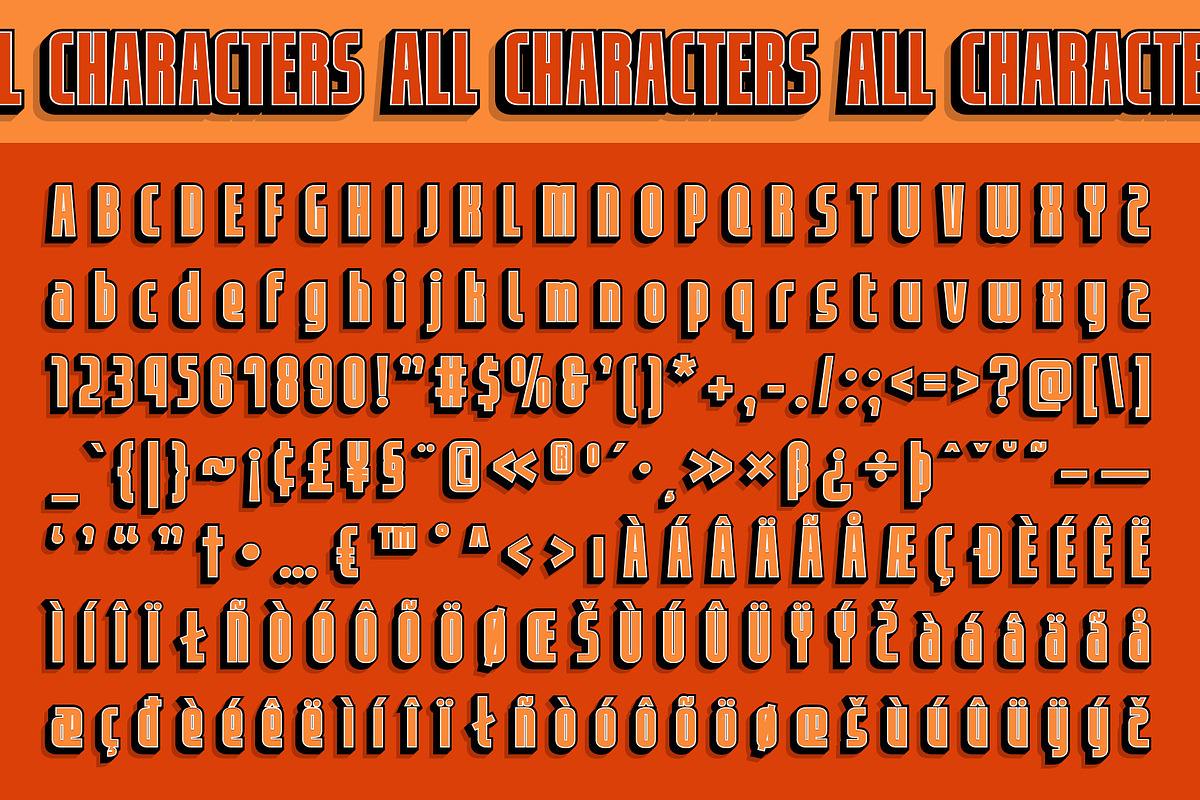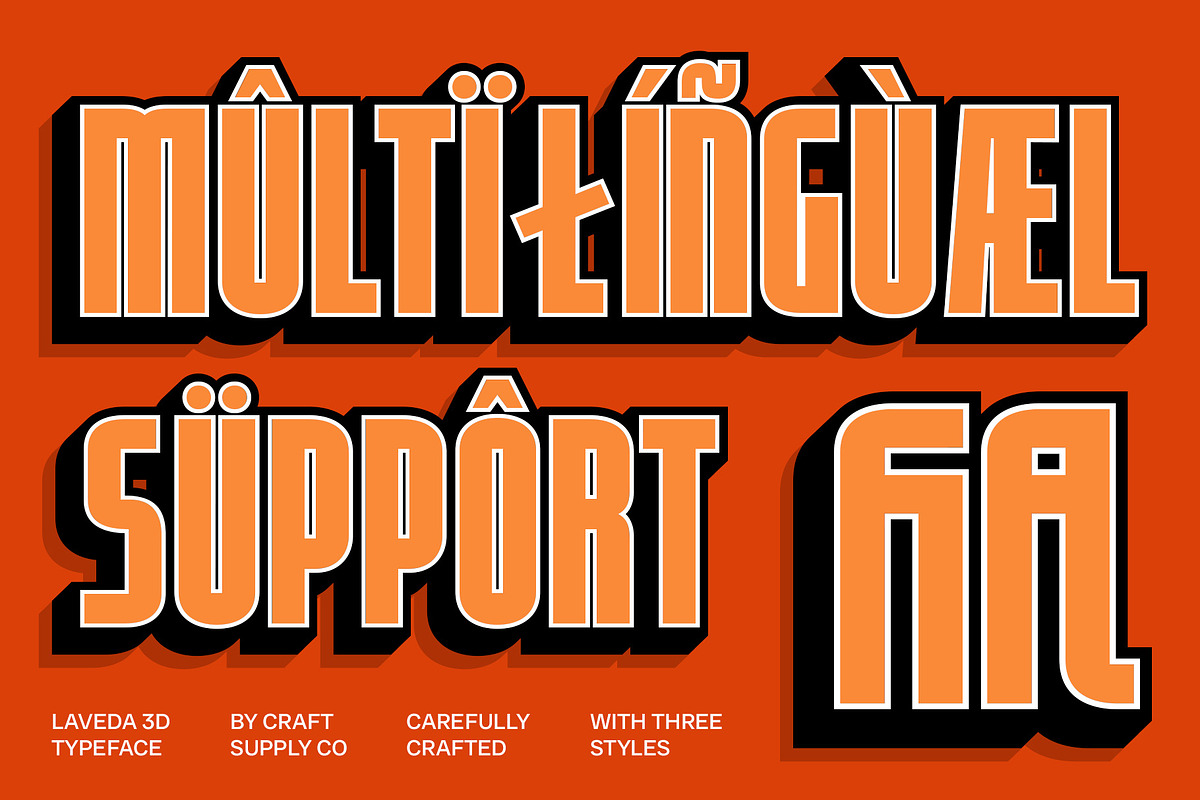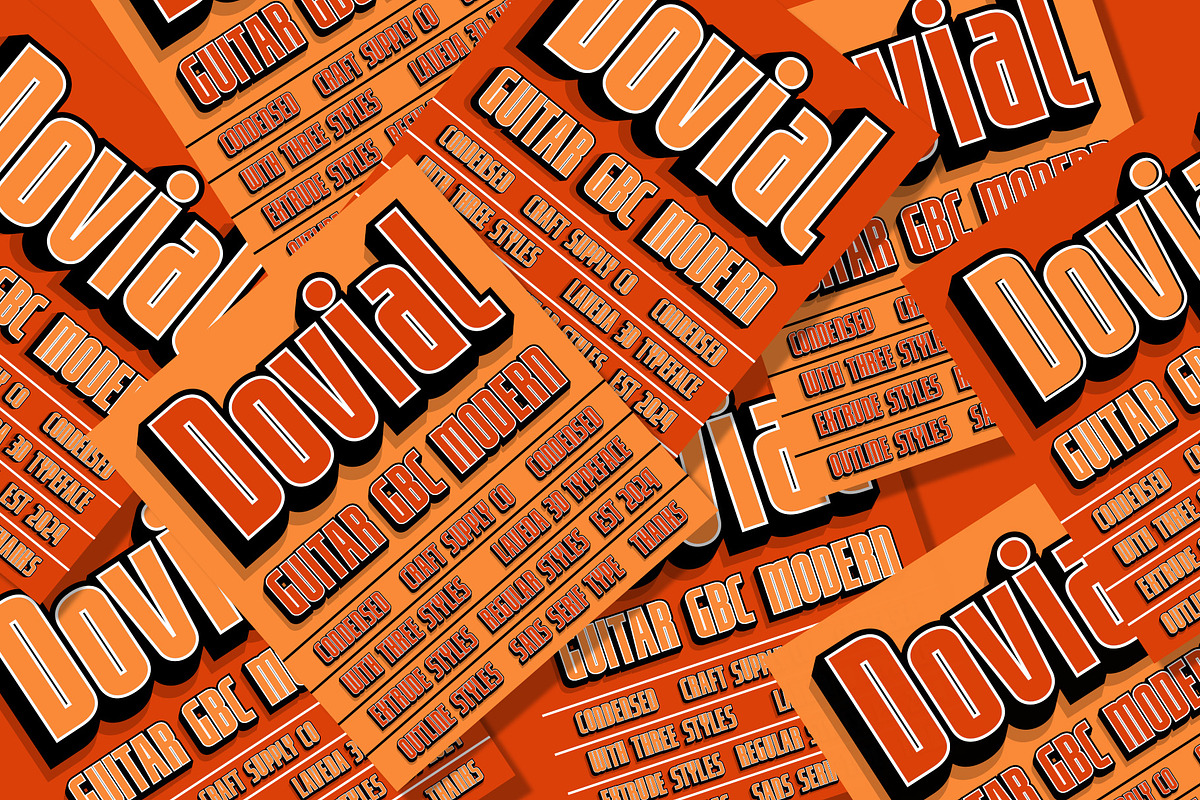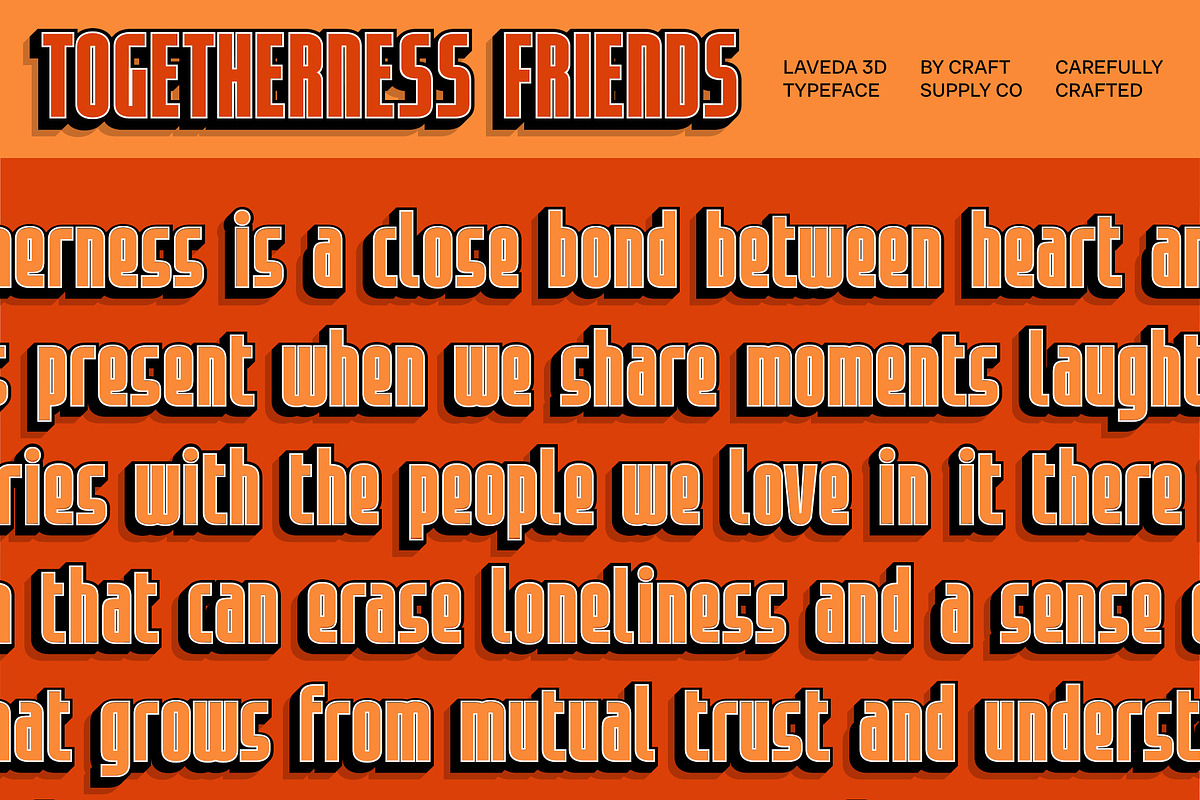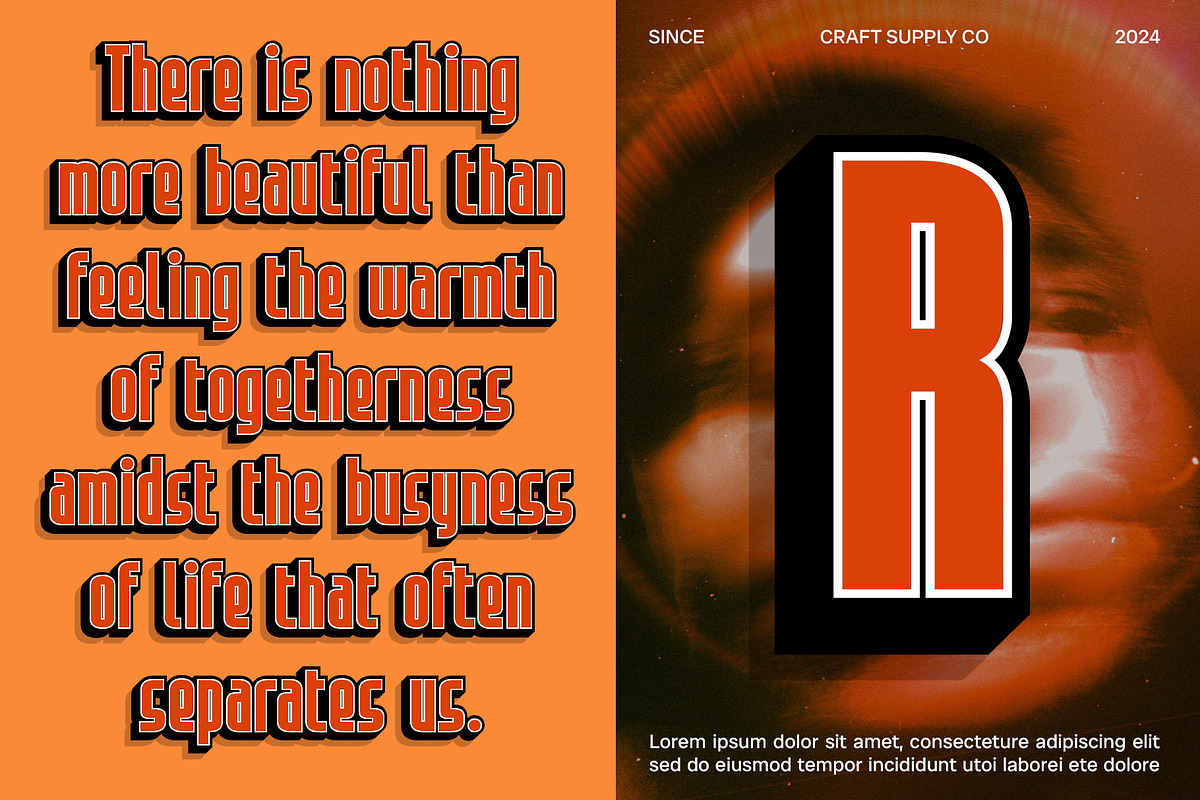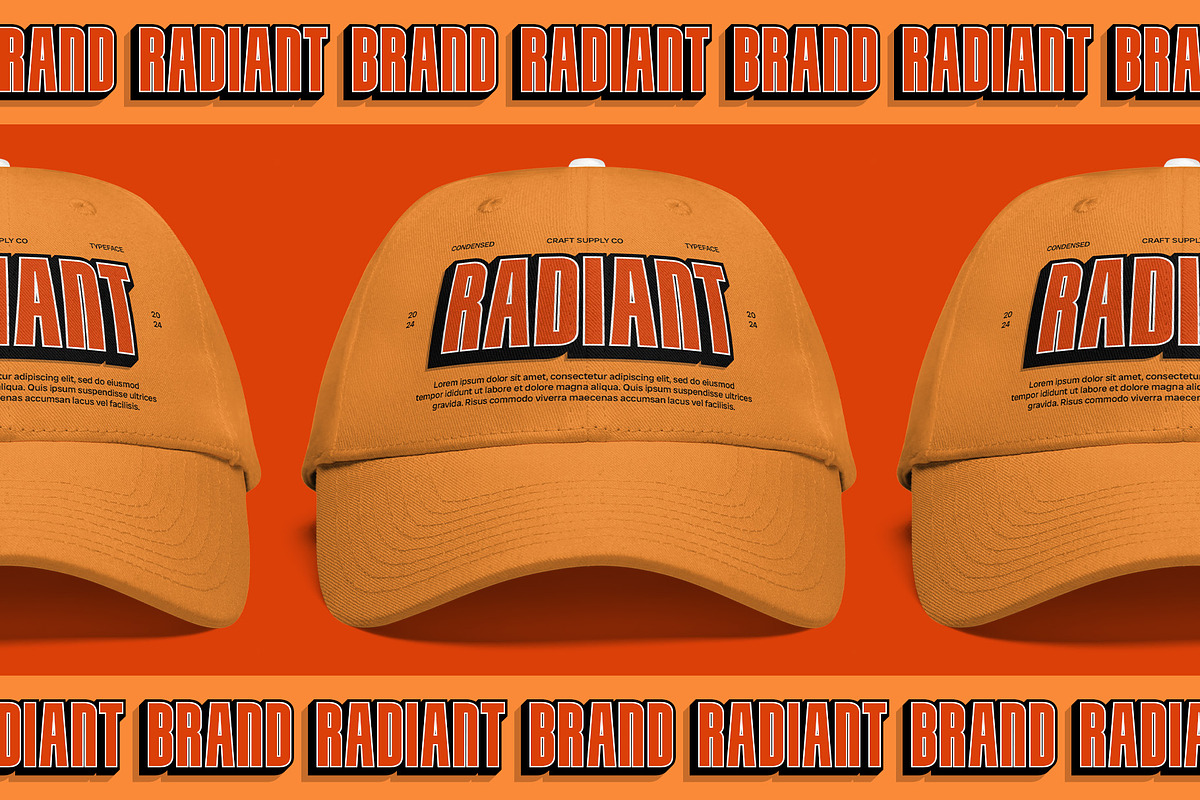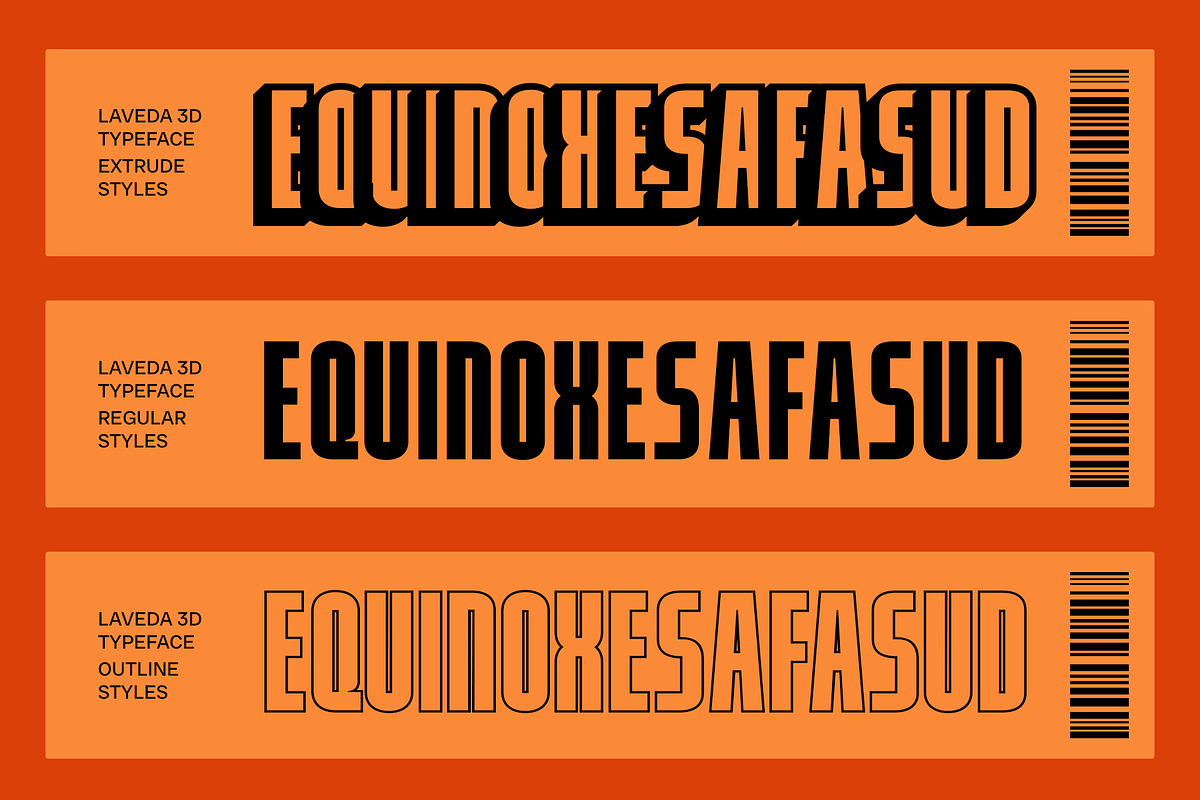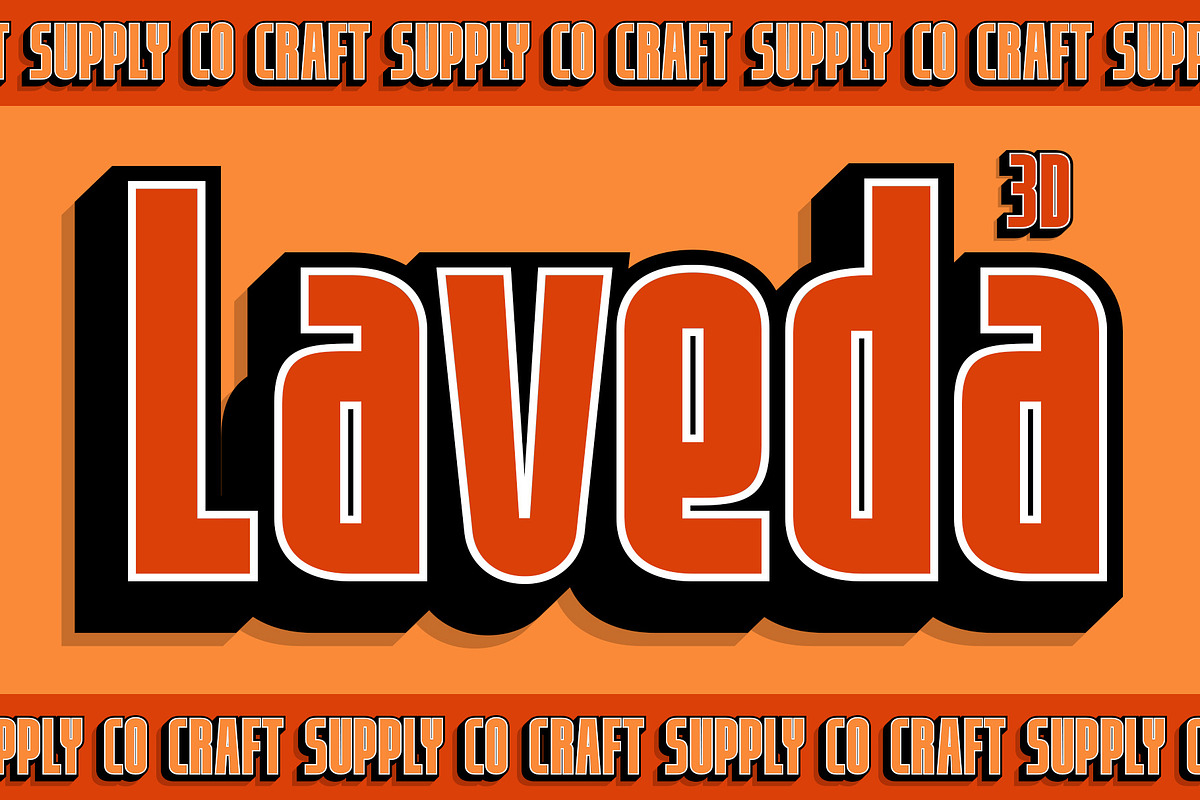
Laveda 3D
Laveda 3D – Modern Sans Serif Font: Boldness Meets Depth
Striking Bold Shapes with a 3D Effect Laveda 3D is a modern sans serif font that features bold shapes enhanced by a captivating 3D effect, delivering a striking and dynamic look that commands attention. Its robust design ensures strong visual impact, making it an excellent choice for a variety of contemporary design applications.
Dynamic Depth and Dimension The 3D effect imbues Laveda with an engaging sense of depth and dimension, transforming standard text into an eye-catching element of any project. This unique characteristic not only adds interest but also elevates the overall aesthetic, making designs feel more immersive and lively.
Versatile Applications for Creative Projects Ideal for branding, advertising, and posters, Laveda 3D seamlessly adapts to diverse design contexts. Whether you’re creating promotional materials or captivating visual displays, this font enhances the visual appeal of your work while ensuring that your message stands out clearly.
Readability and Modern Appeal Despite its bold design and dimensional qualities, Laveda 3D maintains excellent readability, ensuring your content remains accessible and clear. This balance of style and functionality makes it the perfect choice for projects that require standout elements without sacrificing clarity.
- Laveda Regular
- Laveda Outline
- Laveda Extrude Right
- Laveda Extrude Left